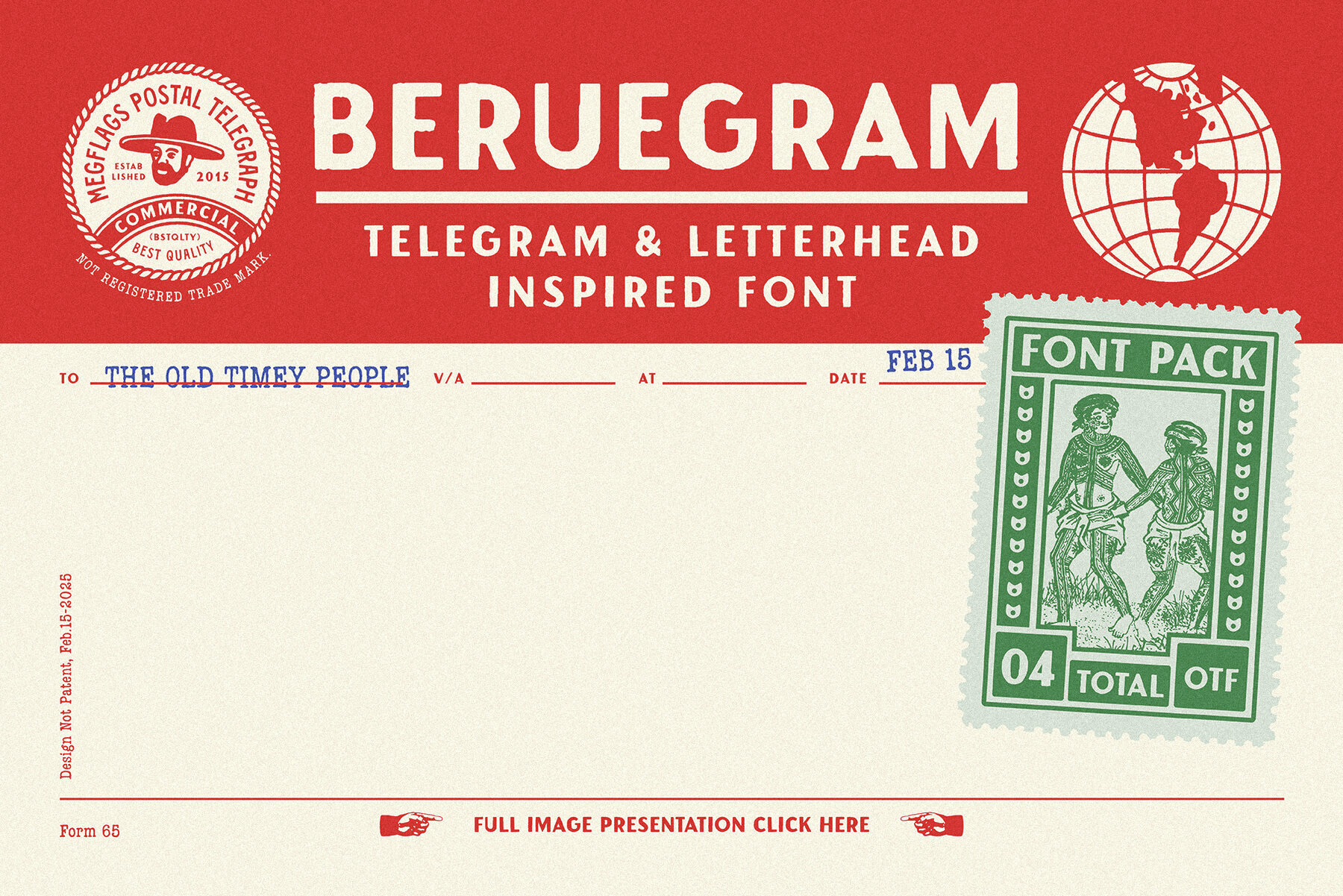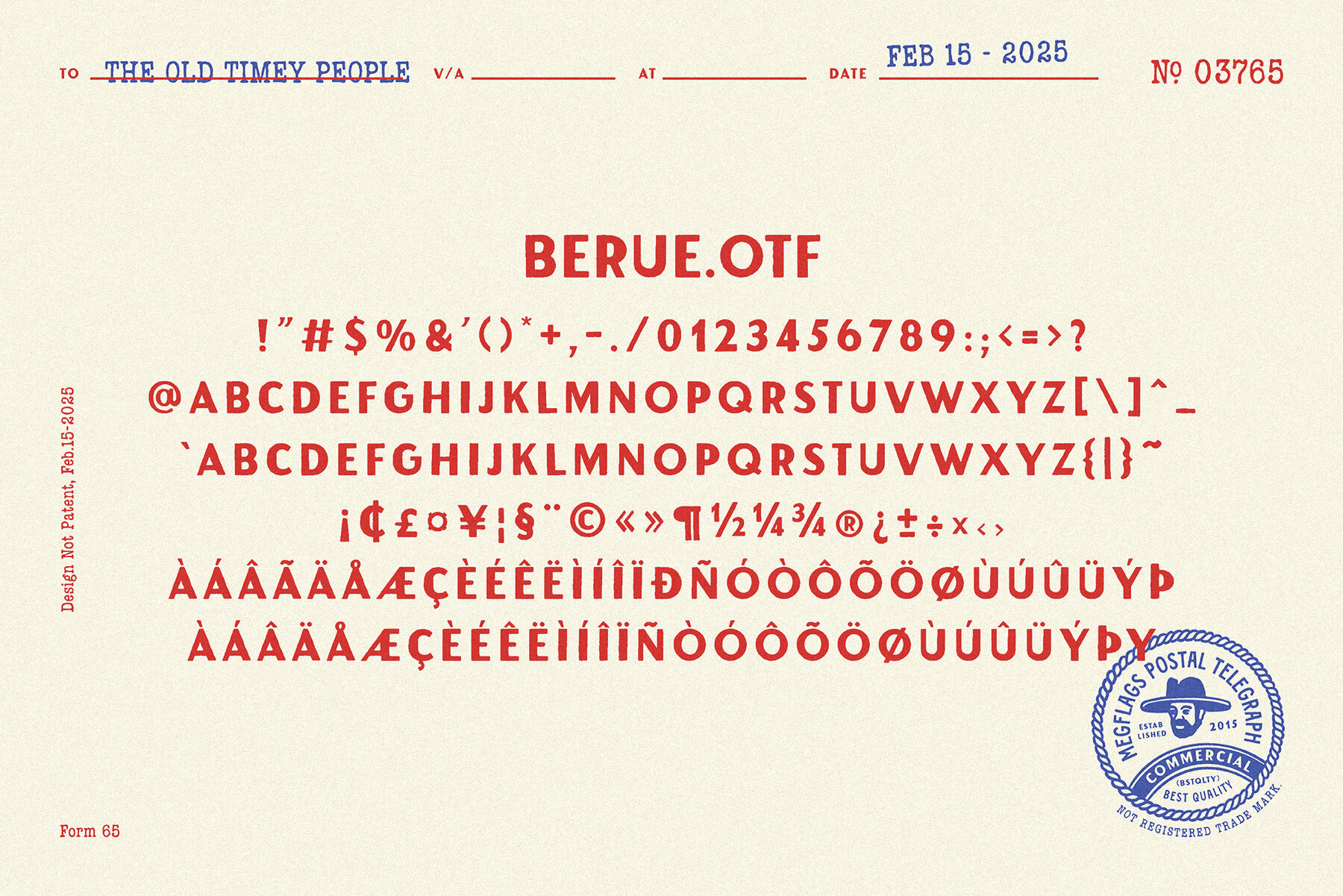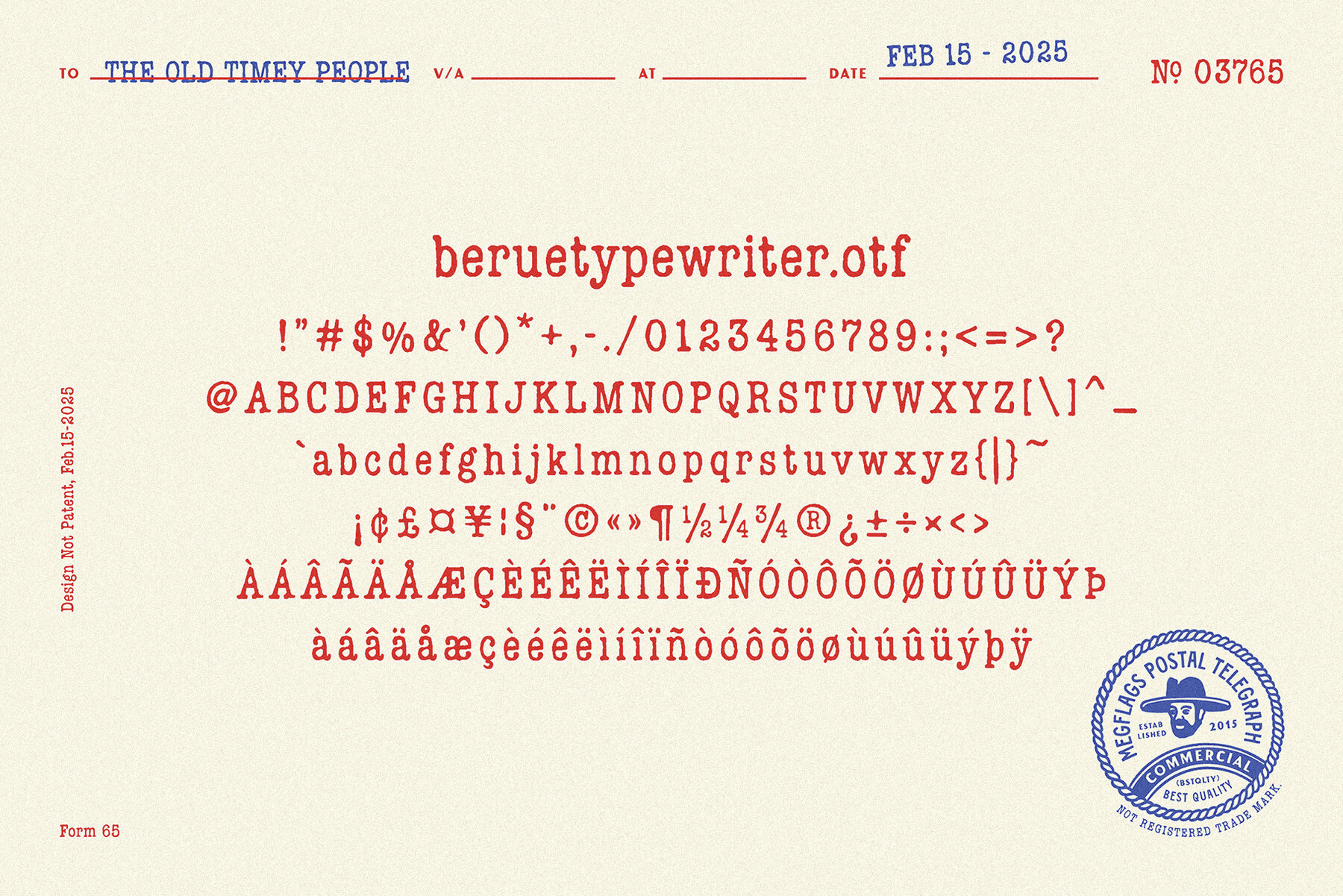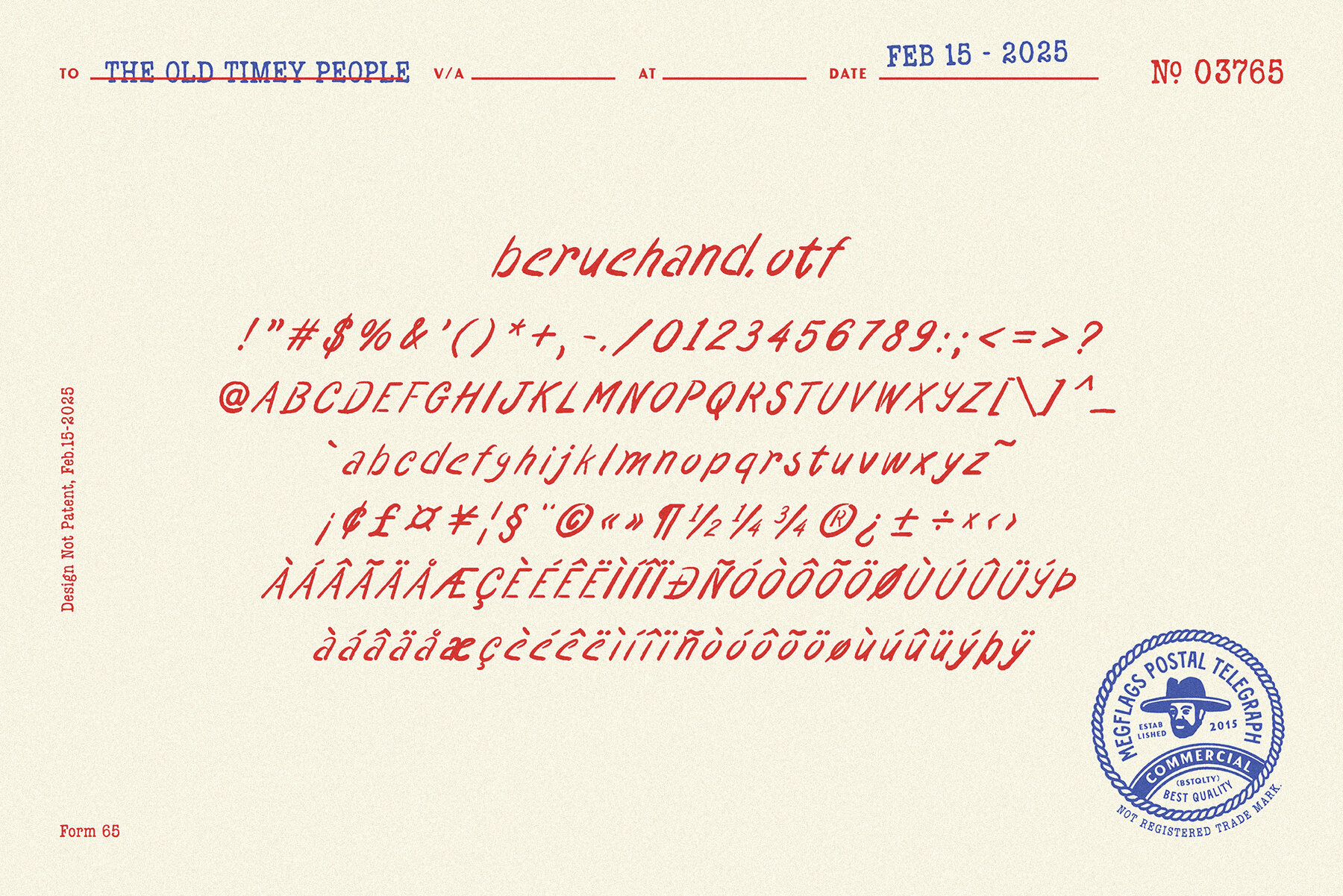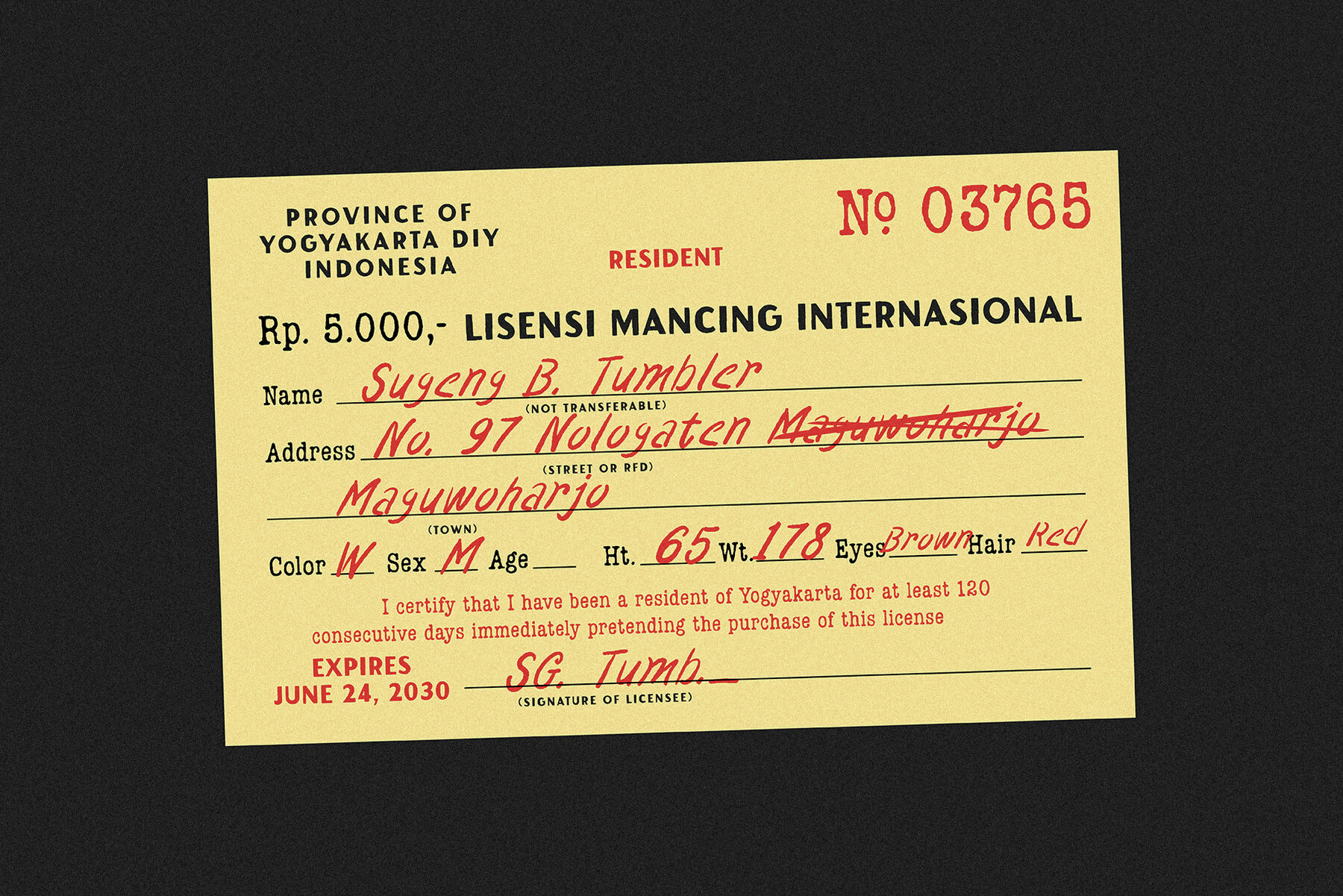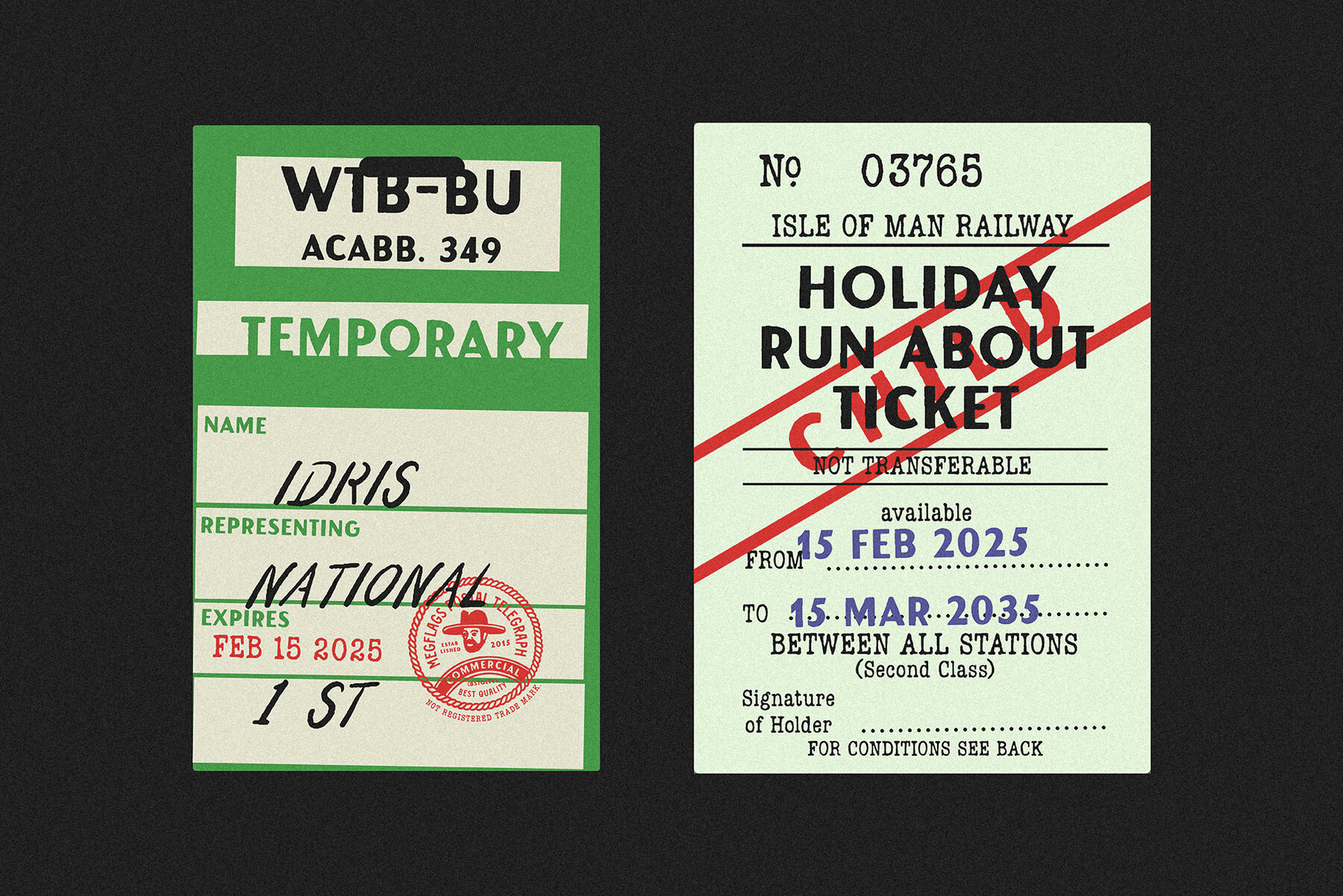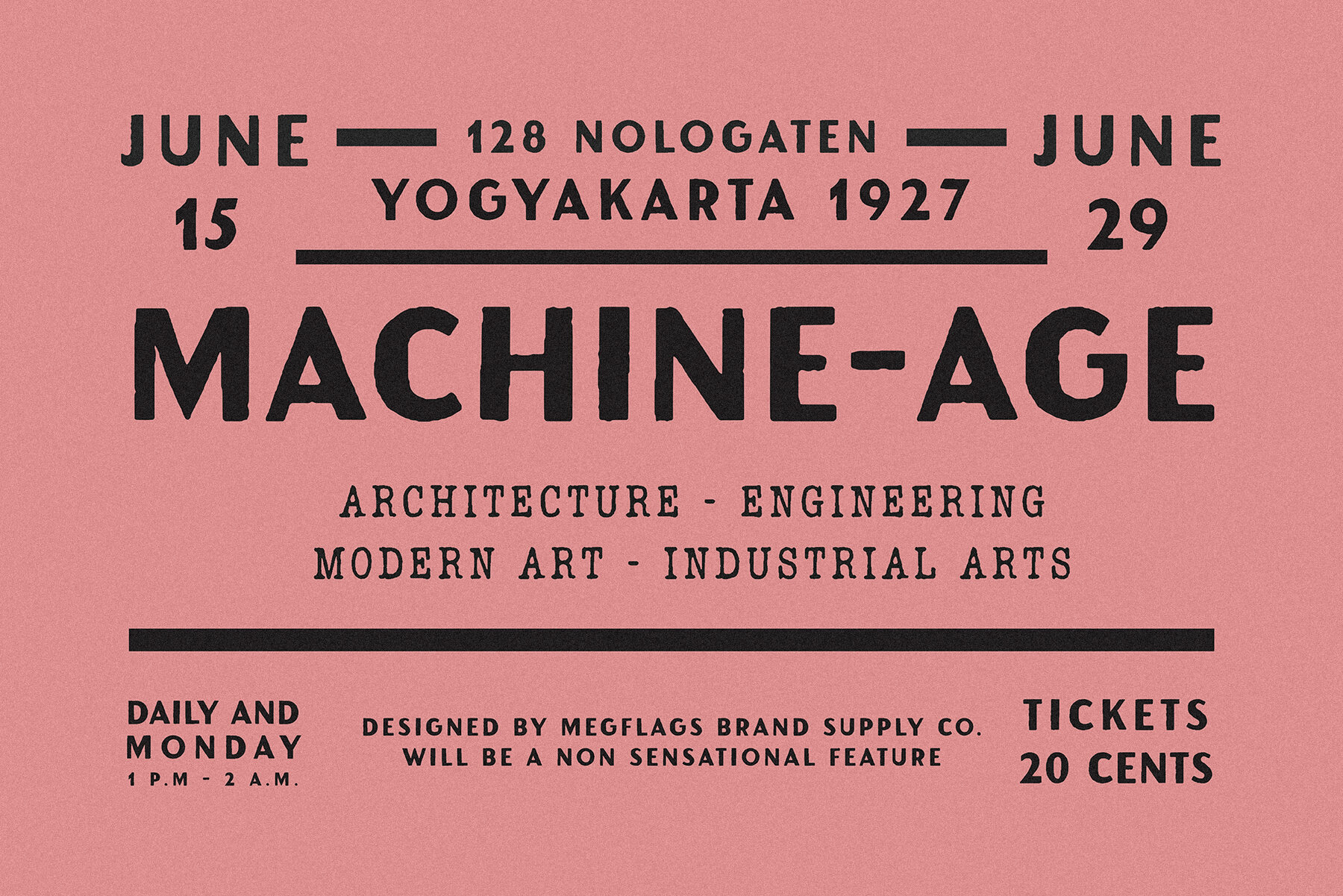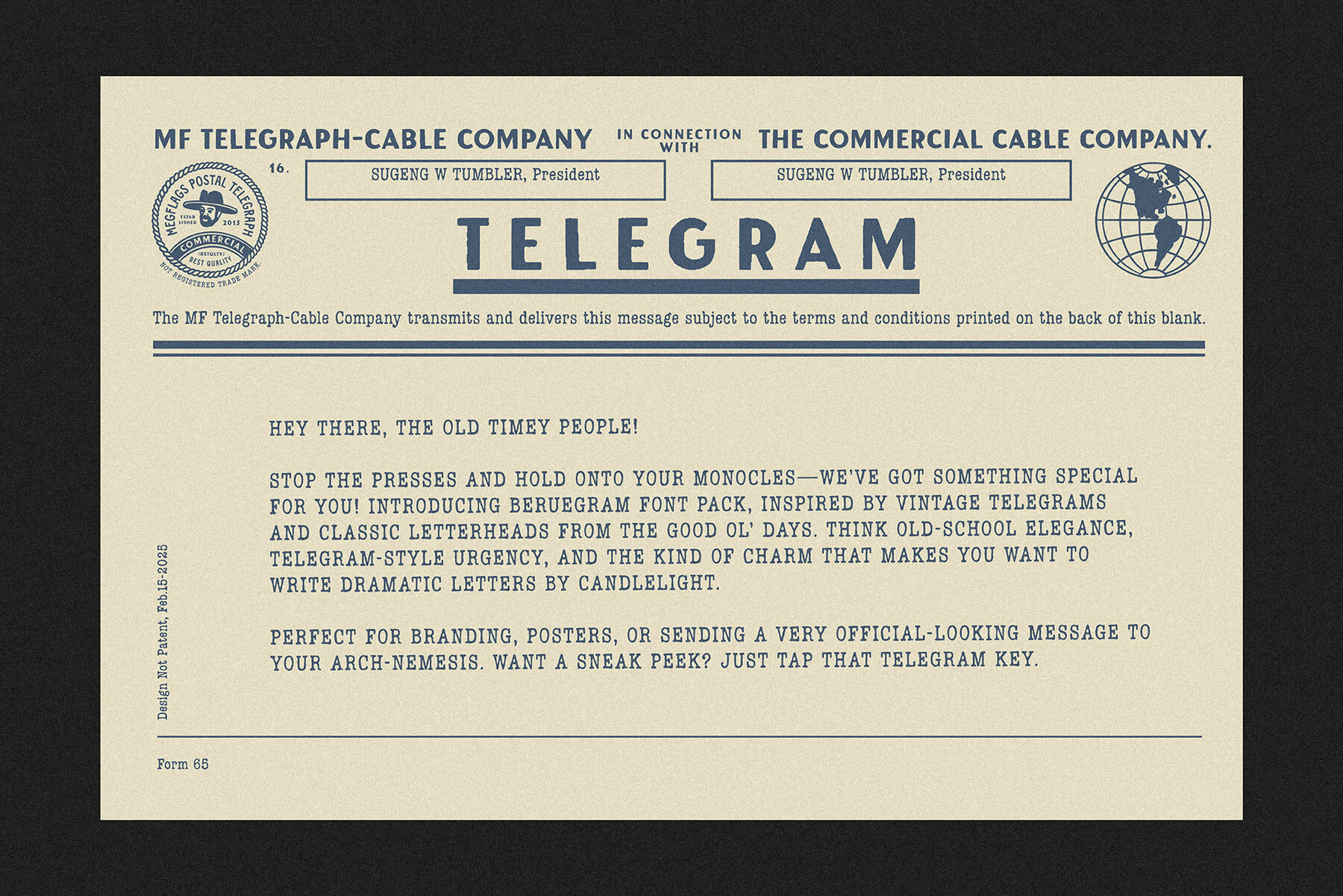
Beruegram Font
Beruegram
Beruegram Hand Italic
Beruegram Raw
The Beruegram Font Pack is inspired by vintage telegrams and classic letterheads, bringing old-school elegance and telegram-style urgency to your projects. Perfect for those who appreciate the charm of dramatic letters written by candlelight.Beruegram Font Pack: Vintage Telegram Charm